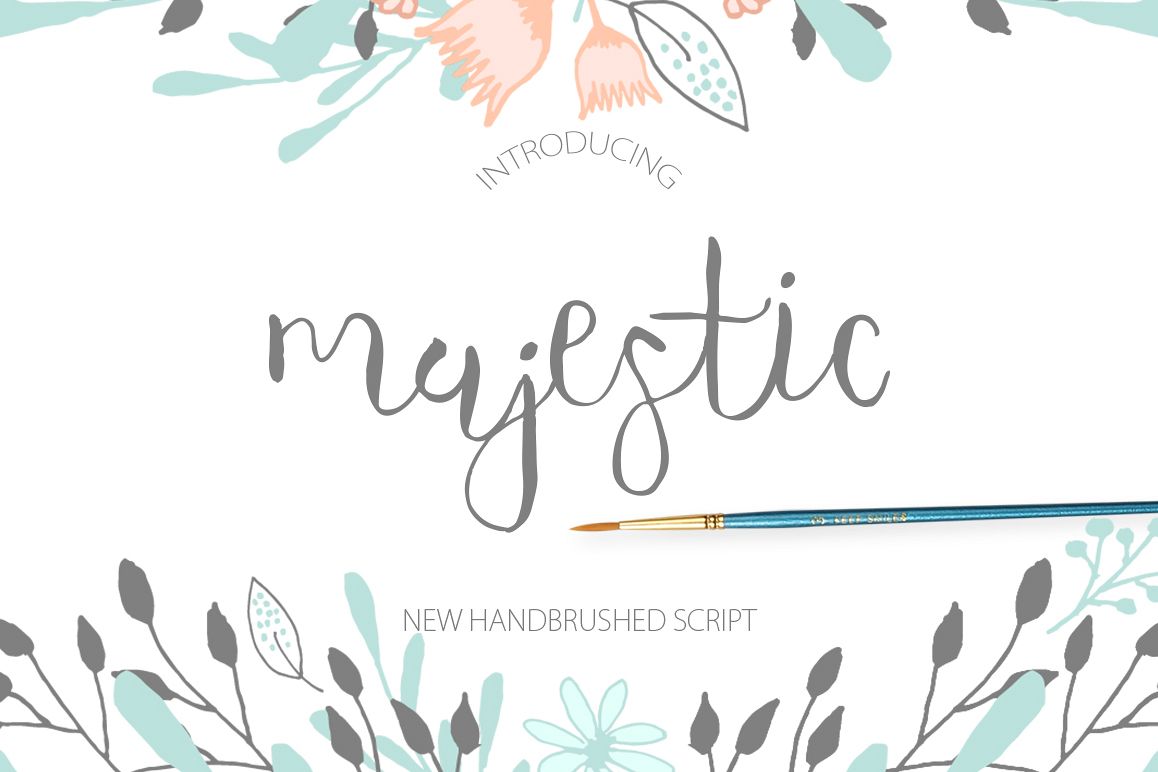
Majestic
Majestic is beautiful thin handwritten font.
It looks like it has been created with a tiny brush.
Looks great on wedding invites, birthday cards, nursery decorations and more.